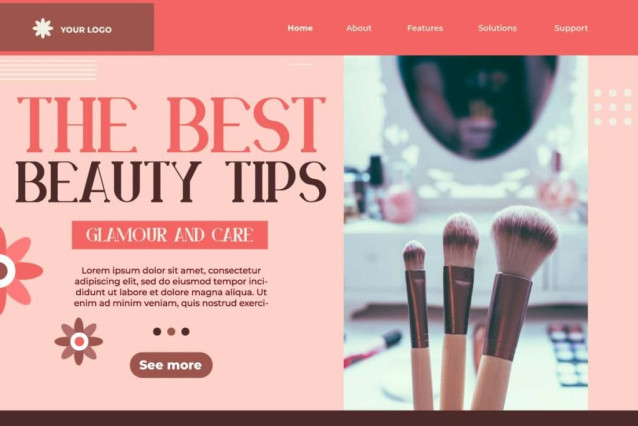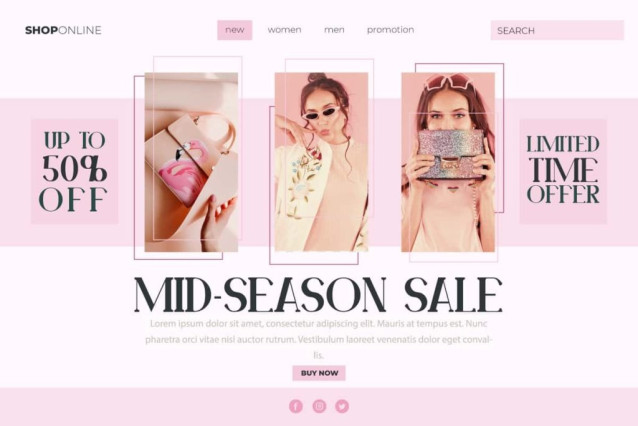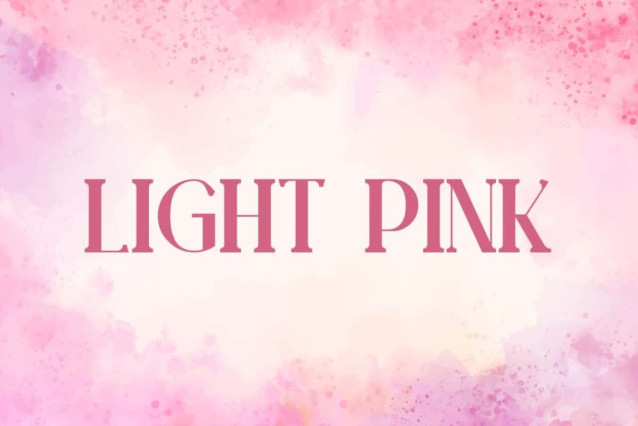
Light Pink Font
Light Pink Font is an elegant serif that combines a unique modern style but still has vintage look on it. This type of font is very suitable for various needs, such as blogs, business cards, covers, headers, logos, mockup, notes, product packaging, quotes, signage, title, template, website, and many more.
Light Pink Font includes full set of ALL CAPS for Uppercase and Lowercase Basic Characters, Numbers, Punctuation, and Symbols. Made with high readability in a classy style. Create stunning masterpieces with this font! Suitable for accessories and gift, apparel, artist, beauty product, fashion, graphic design, handicraft, lodging, makeup brands, photography, publisher, spa salon, etc.